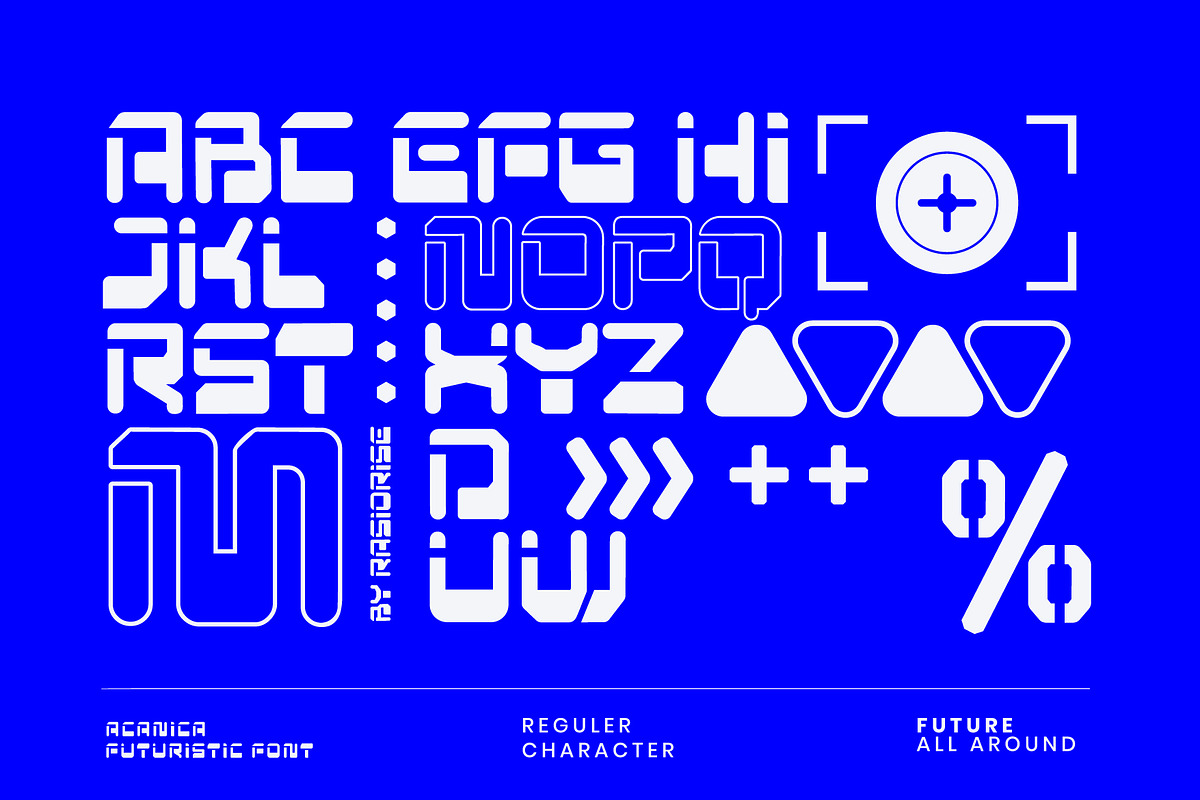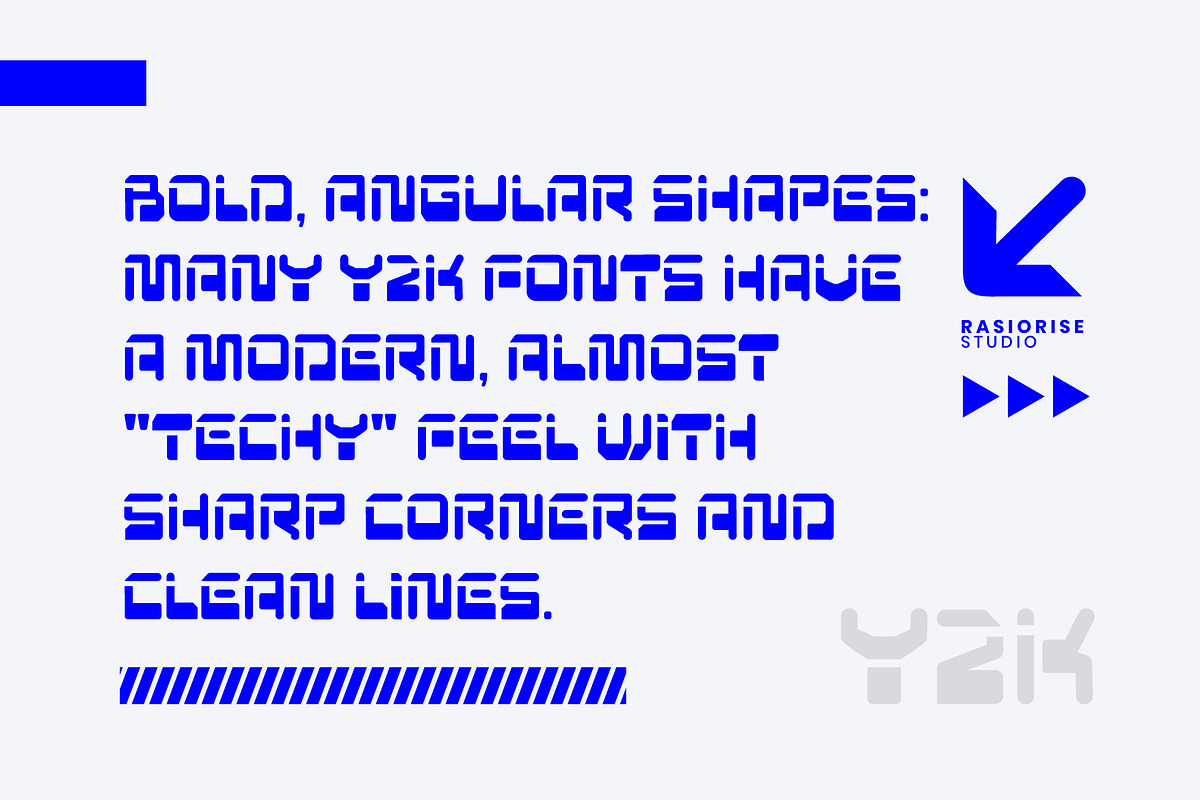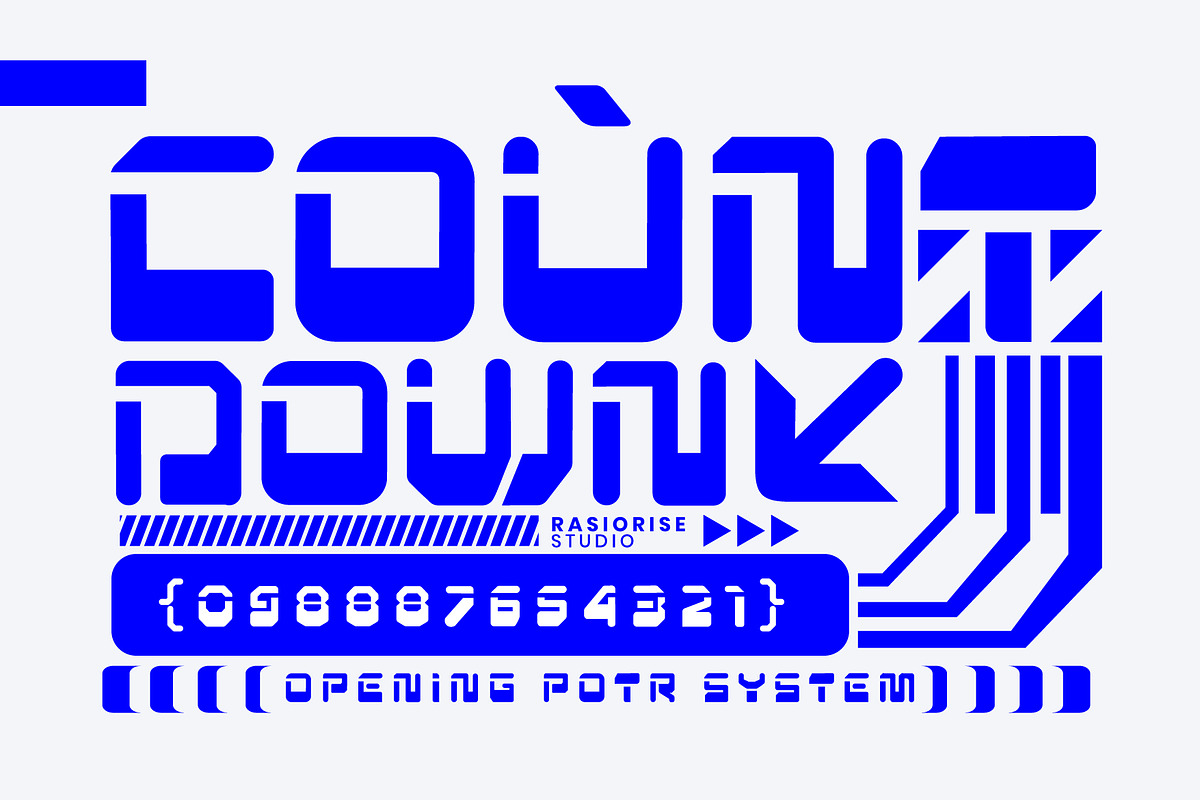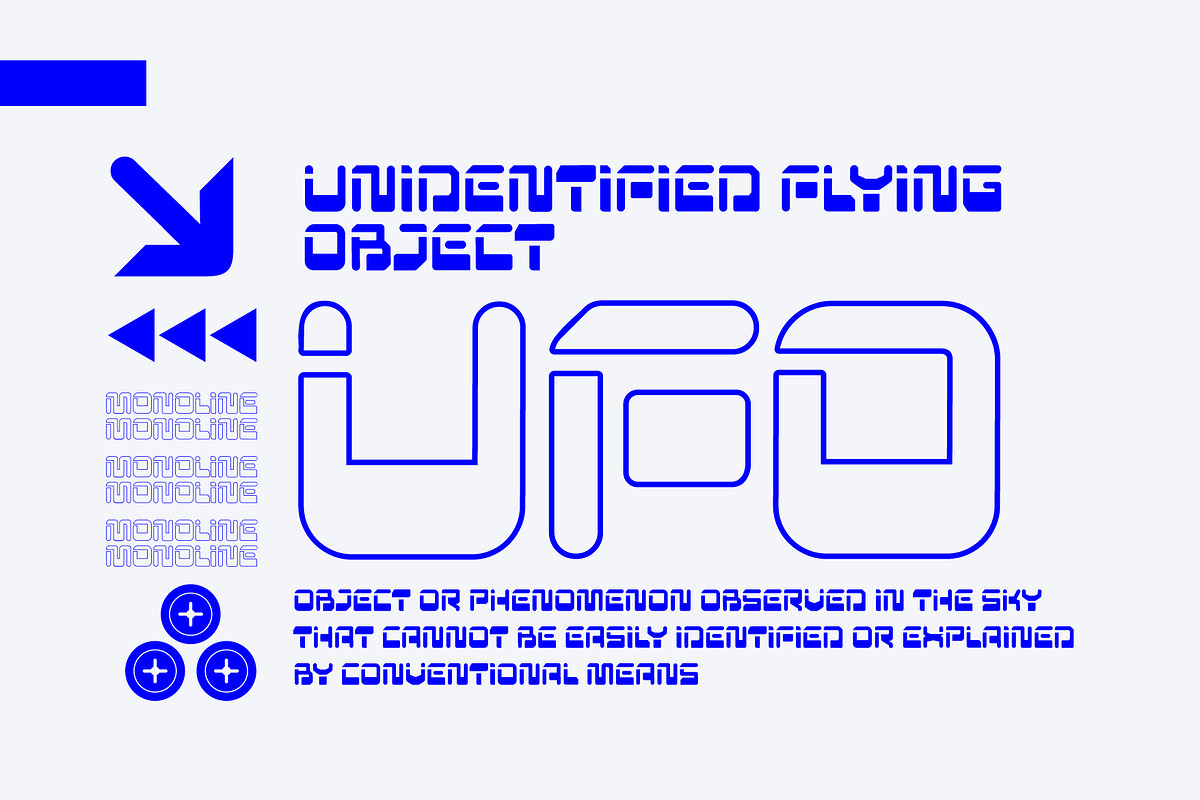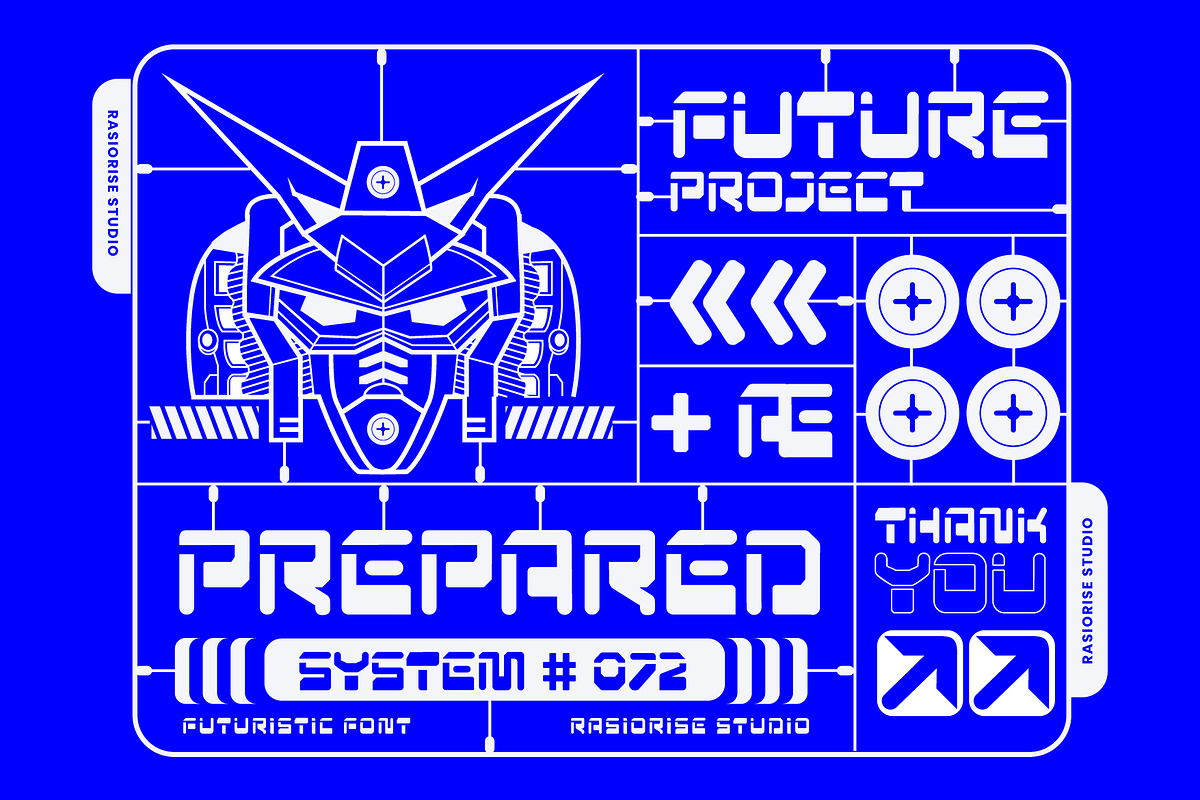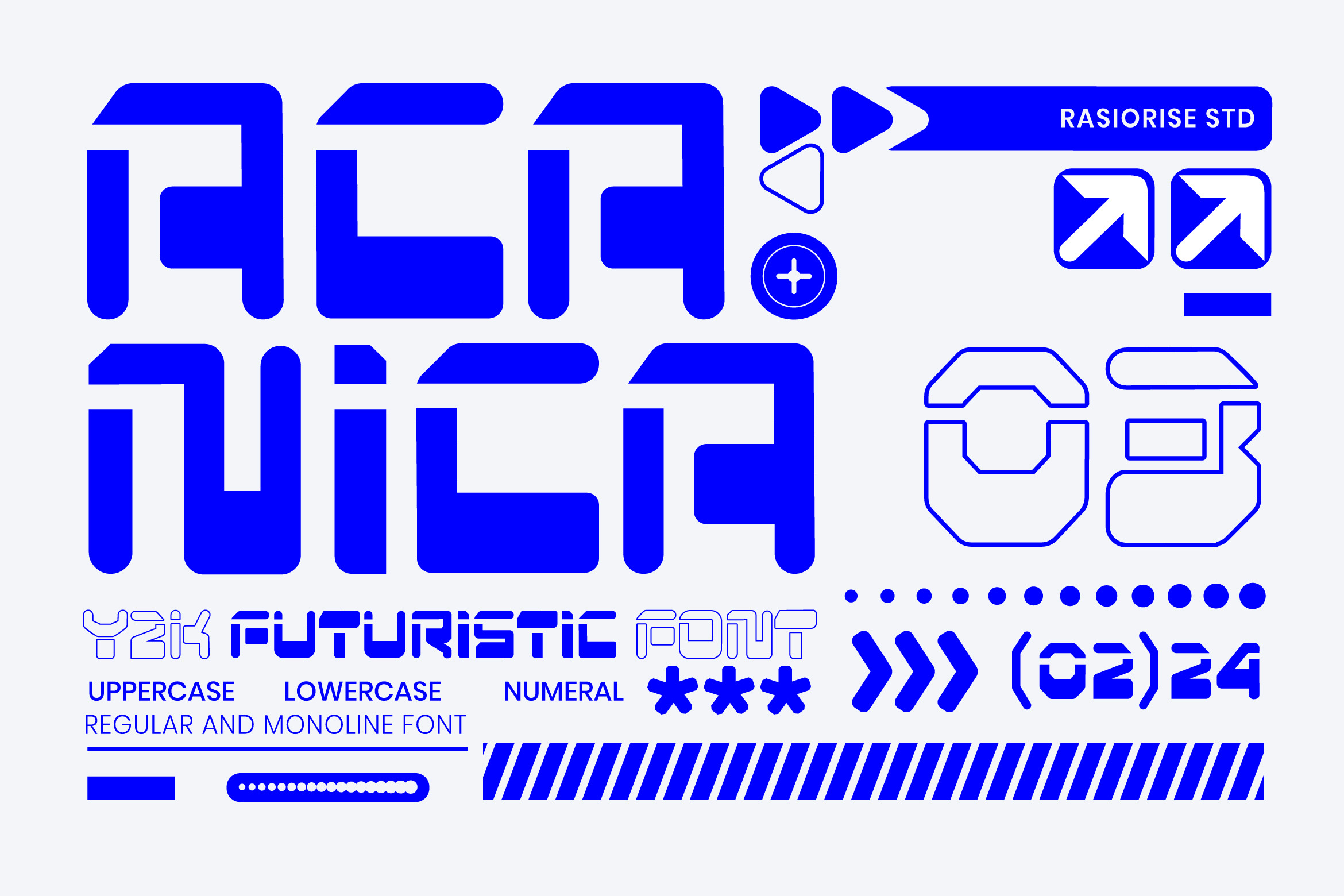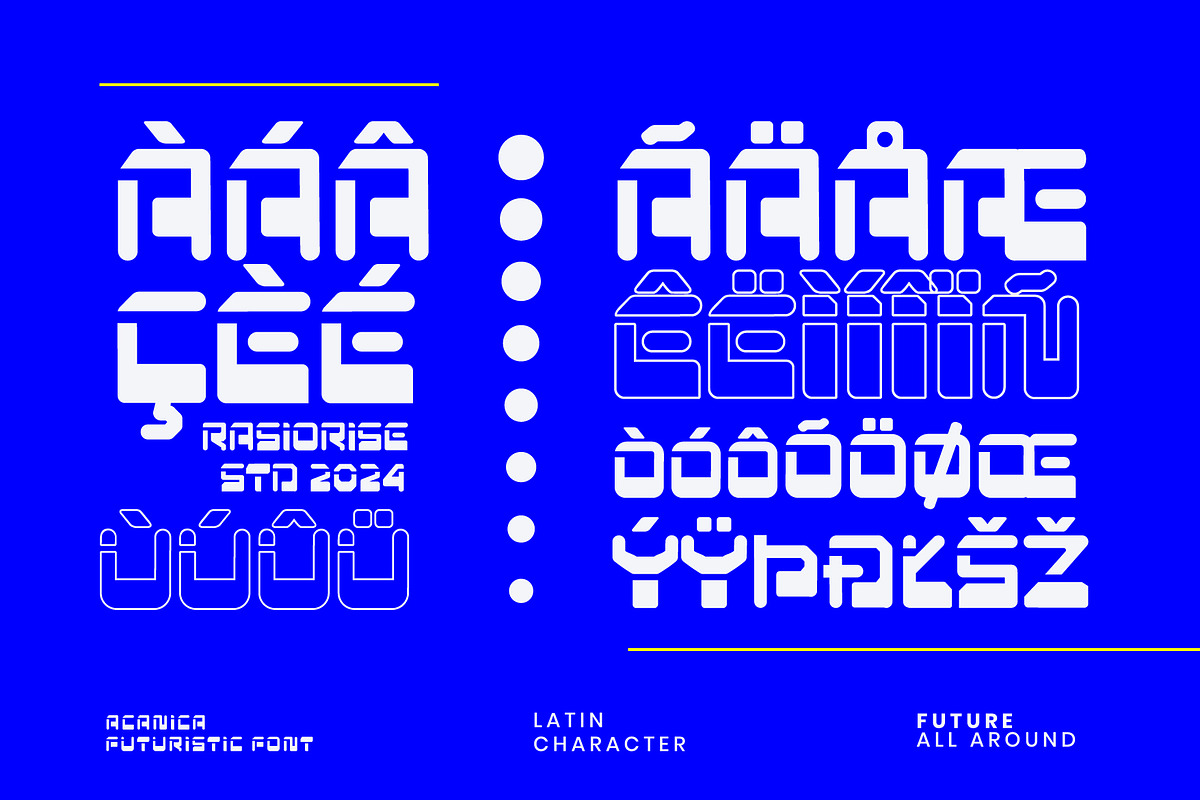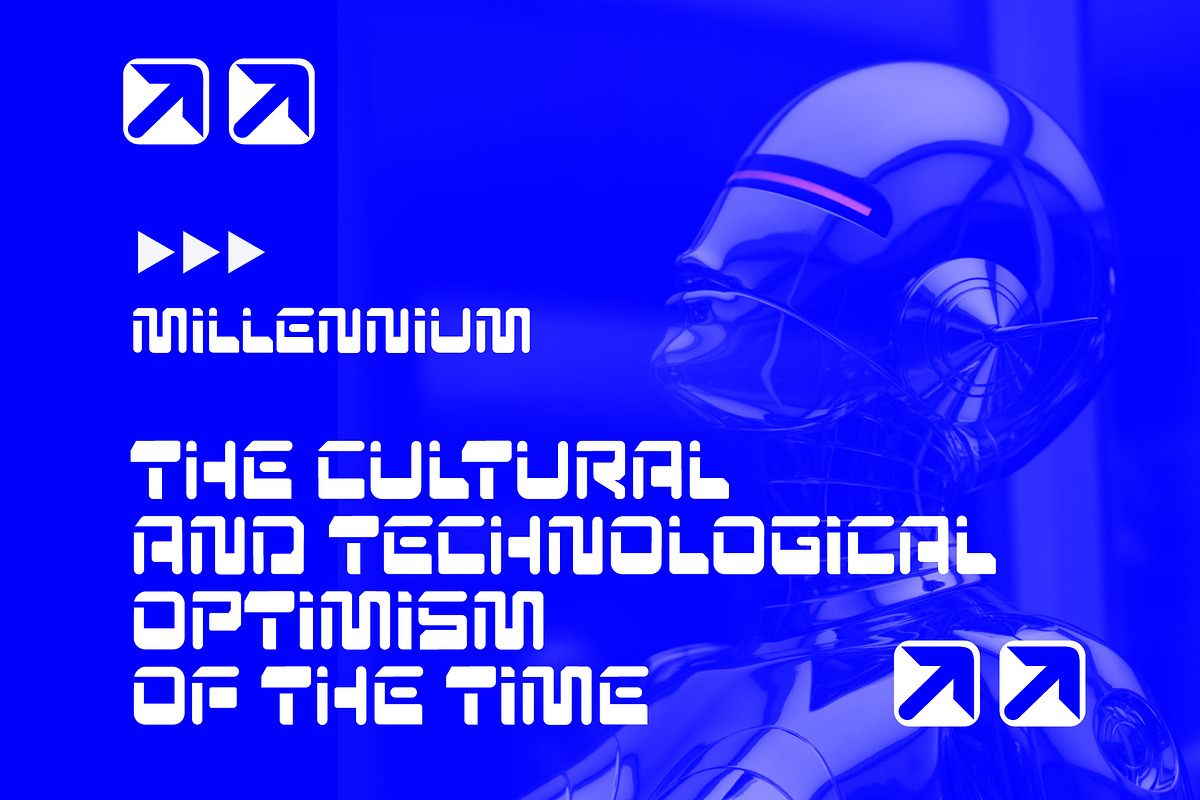
Acanica a Y2K Futuristic Font
Hello Everyone! Presenting The font Acanica is now available for people searching for a futuristic Y2K font. The Sci-Fi, Cyberpunk, Hyperbeast, and Mecha font styles served as inspiration for this design. Some elements, such as the regular and monoline character types, were combined to give the typeface a bolder appearance.